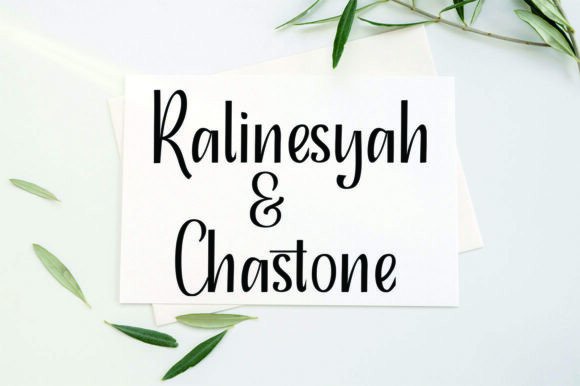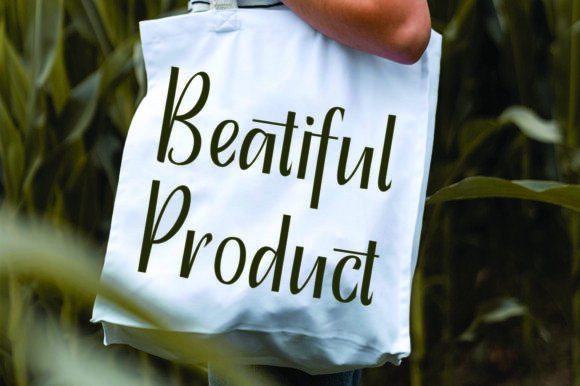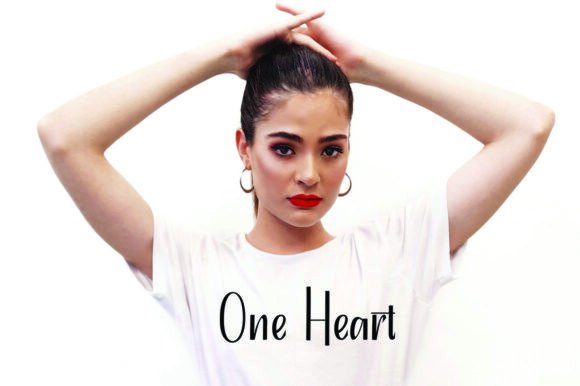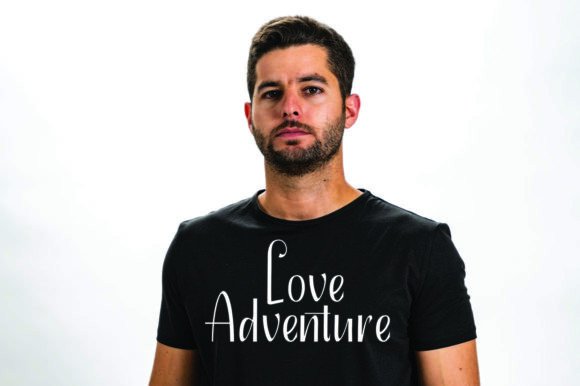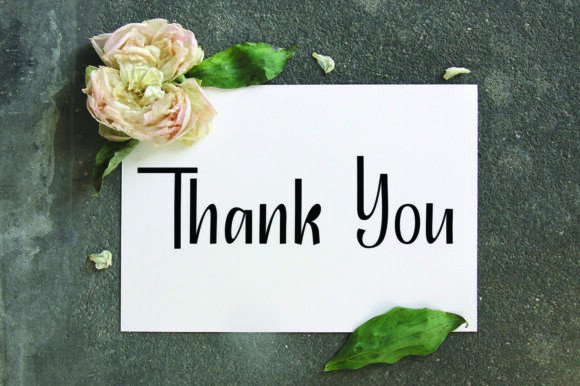
Introduction to Kartyna Script Font
Have you ever stared at a blank page, desperately searching for the perfect font to bring your creative vision to life? As designers, we’ve all been there – the frustration of scrolling through endless options, only to settle for something that’s just ‘good enough.’ But what if you could unlock the secret to elevating your designs with a single, stunning font?
Enter Kartyna Script Font, a game-changing design resource that’s about to revolutionize the way you approach typography. This elegant calligraphy font is more than just a pretty face – it’s a masterclass in refined sophistication, carefully crafted to add a touch of luxury to any creative project.
With its smooth, clean, and highly legible letterforms, Kartyna Script Font is the perfect addition to your design arsenal. Whether you’re working on a high-end fashion brand, a luxury wedding invitation, or a gourmet food label, this font is sure to impress with its timeless appeal and versatility.
Key Features of Kartyna Script Font
- The Kartyna Script Font is available in a single weight, providing a consistent and harmonious look throughout your design.
- Its cursive and flowing style makes it perfect for titles, headings, and other creative typography applications.
Honest Review: Kartyna Script Font
As a designer, I’m always on the lookout for high-quality design resources that can elevate my creative projects. The Kartyna Script Font is one such resource that I’ve been experimenting with, and I must say, it’s a gem!
- ✨ Beautifully crafted script font with a touch of elegance
- ✨ Offers a transparent background, making it easy to layer and composite with other design elements
- ✨ Perfect for creating stunning typography for invitations, quotes, and other creative projects
However, I do have a few caveats:
- ⚠️ Limited character set, which can make it challenging to use for longer blocks of text
- ⚠️ May not be suitable for certain design styles or themes that require a more modern or edgy feel
Overall, I’m thoroughly impressed with the Kartyna Script Font. It’s a high-quality design resource that can add a touch of sophistication and elegance to any creative project. While it may have some limitations, I believe it’s a great choice for designers who are looking for a beautiful script font with a transparent background.
To get the most out of the Kartyna Script Font, experiment with different font sizes, styles, and colors. You can also combine it with other fonts to create a unique and creative look.
The Kartyna Script Font is commonly used for creating logos, posters, social media graphics, presentations, and reports. It’s a versatile font that can be used in various creative projects.
The Alex Brush Font is a beautiful, hand-drawn script font perfect for designers who want to add a personal touch to their creative projects. This font features a delicate and refined feel, making it suitable for designing wedding invitations, greeting cards, and other special occasion materials. Alex Brush Font has a more delicate and intricate feel compared to Kartyna Script Font, making it ideal for projects where a more subtle approach is needed.
Q: Can I use the Kartyna Script Font on a transparent background?
Yes, the Kartyna Script Font has a transparent background, making it ideal for use on custom backgrounds or overlays. This feature allows you to achieve a clean and professional look in your designs.